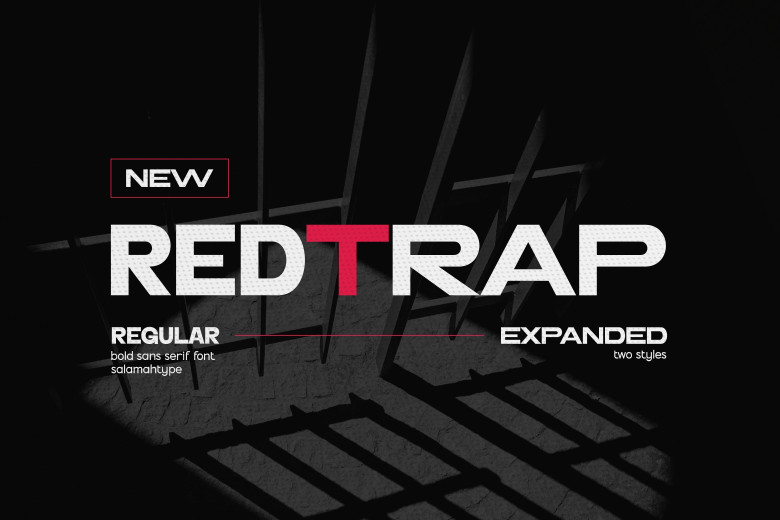
Redtrap Expanded PUO Font
Here comes “REDTRAP”, our bold sans-serif font with large letters that’s meant to give your logo vitality and confidence! REDTRAP has clear lines as well as wide letters–modern plus strong, this unbeatable combination can really make your brand stand out.
This font, which is both solid-looking and versatile, will guarantee that your brand leaves a big impact no matter where its first impression reaches from: Facebook to an envelope via email or on TV!
Redtrap Expanded PUO Sans Serif Font